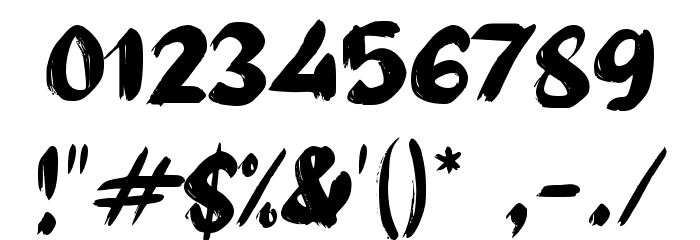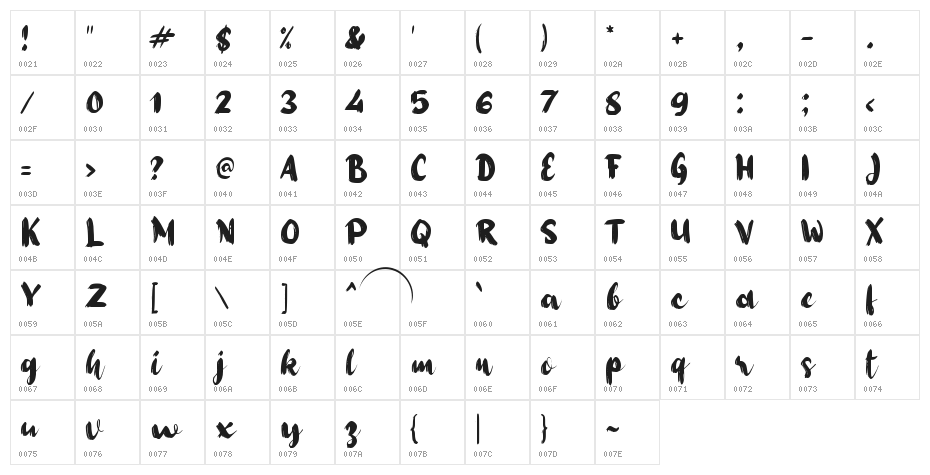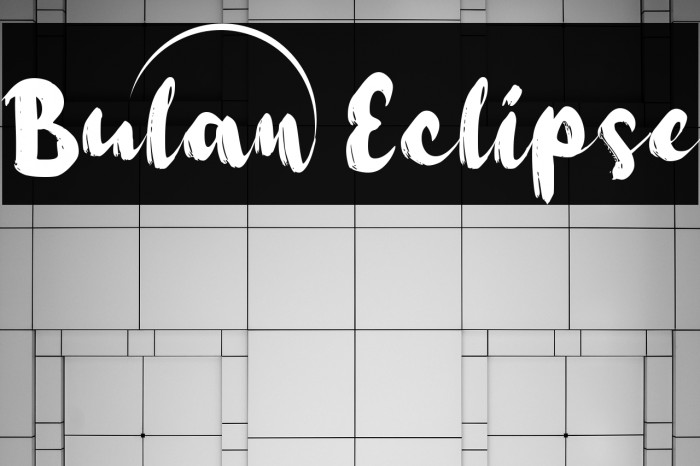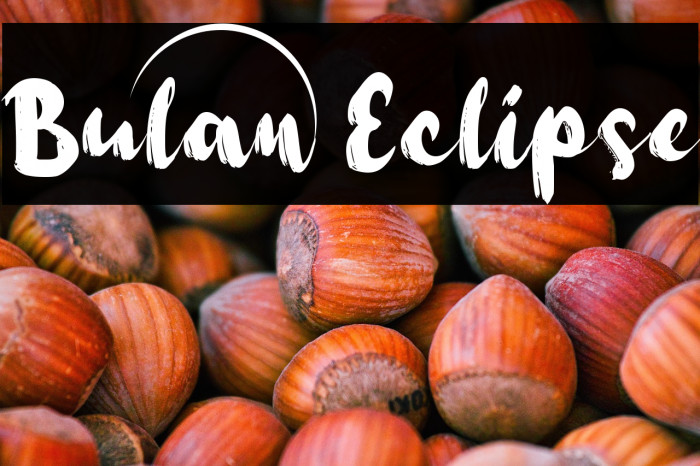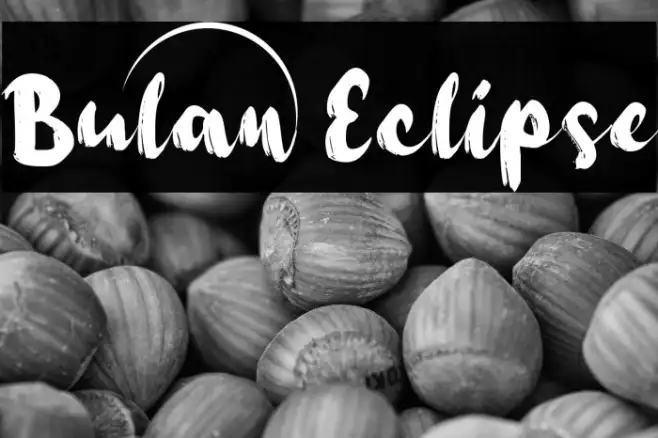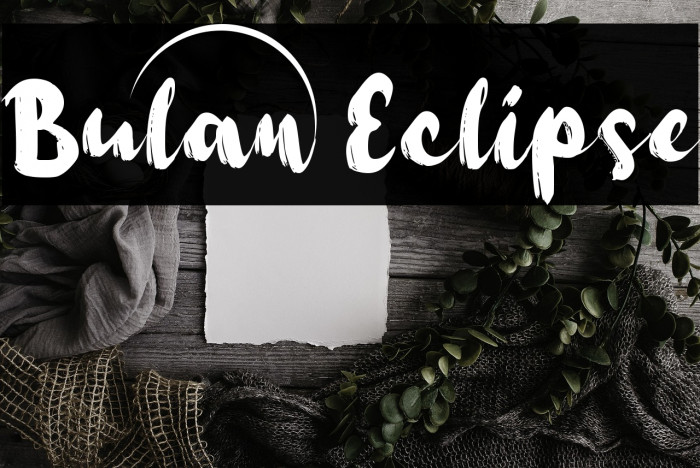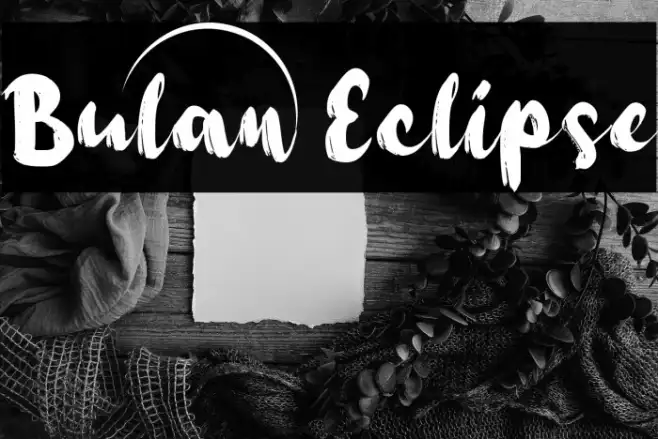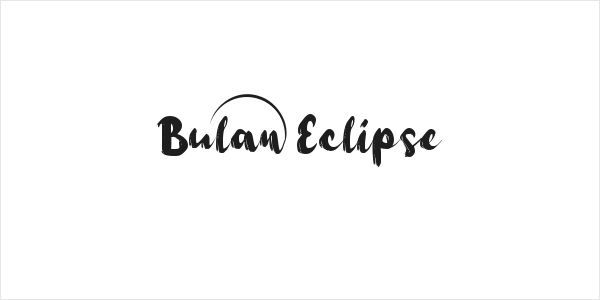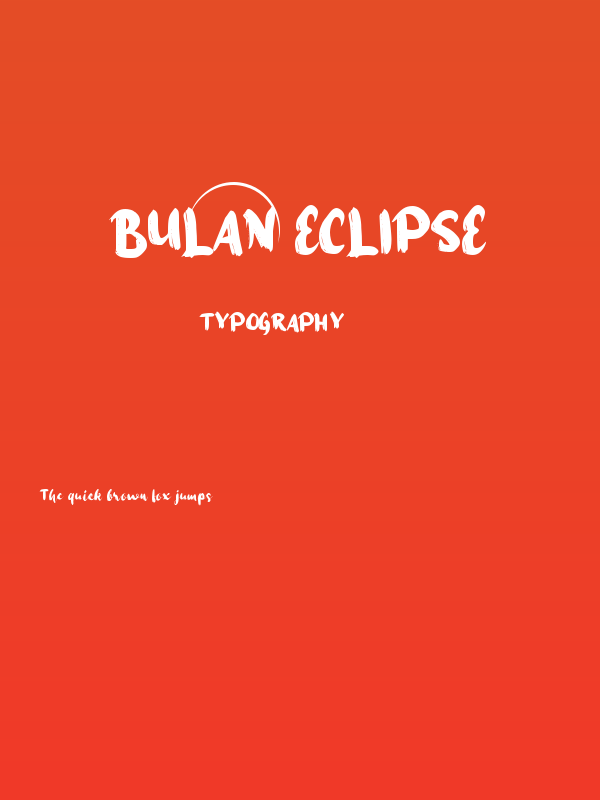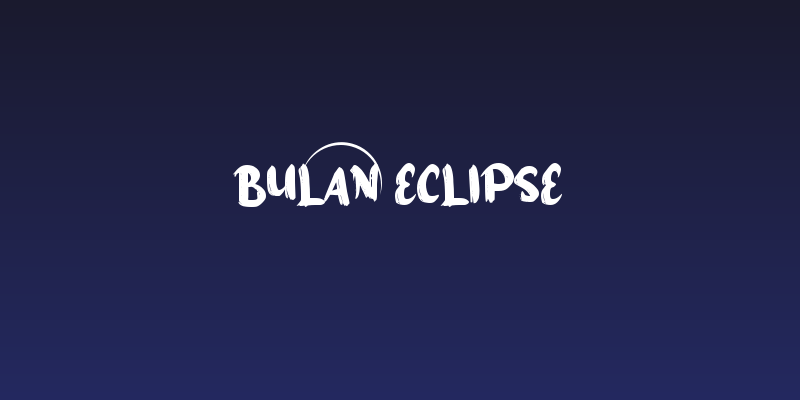
Bulan_Eclipse Font
Bulan_Eclipse Description
This font features a bold and expressive brush script style, characterized by its dynamic and fluid strokes. The letters exhibit a hand-painted appearance, with varying thickness that adds a sense of movement and energy. The uppercase letters are bold and impactful, while the lowercase letters maintain a consistent flow, enhancing readability. The numerals and special characters follow the same expressive style, making them suitable for creative and artistic projects. The overall design conveys a sense of spontaneity and creativity, making it ideal for projects that require a personal and artistic touch.
Proposed ProjectsIdeal for branding, posters, invitations, and artistic projects that require a personal touch.